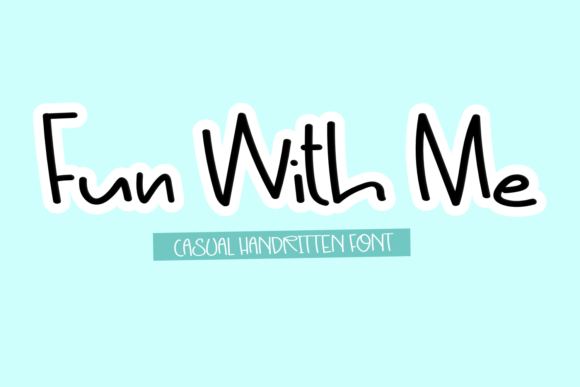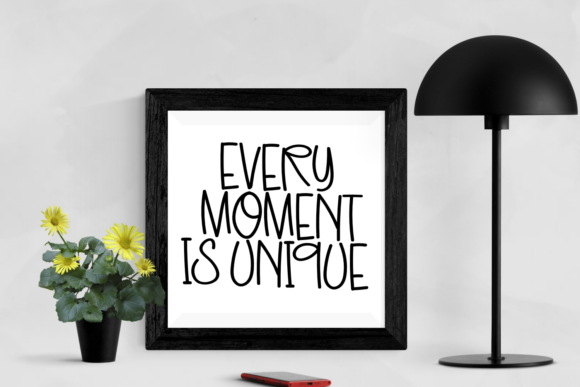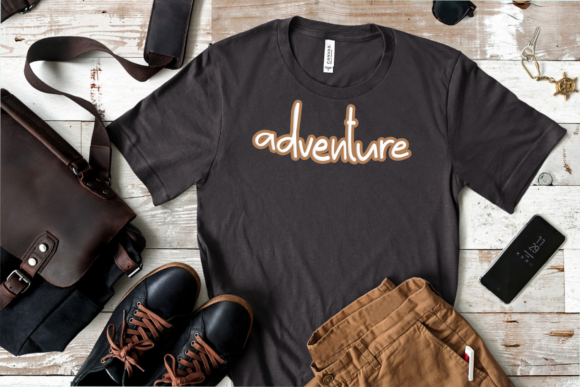
About Fun with Me Font
Fun With Me is a lightweight handwritten font. It is perfectly suited for traditional media and web projects, due to its natural, simple, and easy-to-read look!